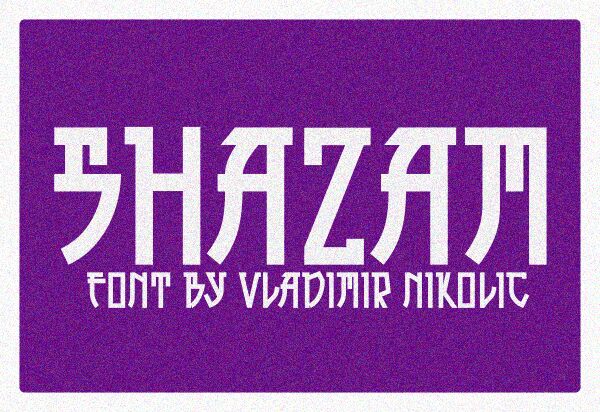
Shazam font by Vladimir Nikolic is a free Japanese-style condensed font whose design concept focuses on combining futuristic, geometric, and angular elements. Its tech-inspired aesthetic visualizes a strong presence that’s ideal for modern projects of different natures and industries.
Expand brands in the tech, finance, or social media industries with its unique appearance. Use it in product packaging and labels for electronics, products outline for online stores, posters designs, famous artwork typefaces recreation, or even UX/UI applications including video games interface.